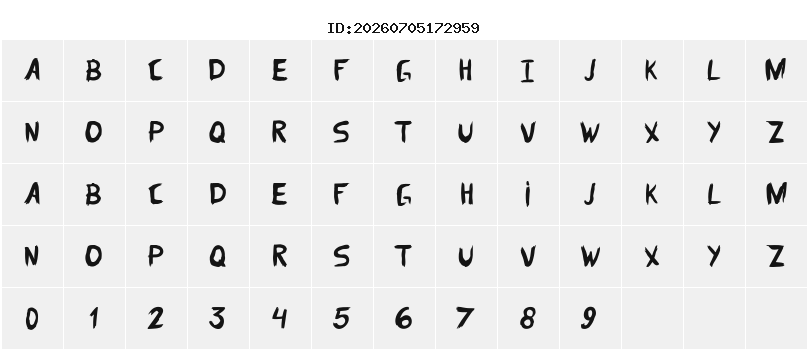
Dom Parquim Preview
• Font Name: Dom Parquim
• Full Font Name: Dom Parquim
• PostScript Name: DomParquim
• Character Count: 162
• Manufacturer: FRANCINE, SINDY, THIAGO
About Dom Parquim.ttf
Dom Parquim.ttf is a modern, elegant sans-serif font designed for ultimate readability and visual harmony. Perfect for branding, headlines, web design, and print materials.